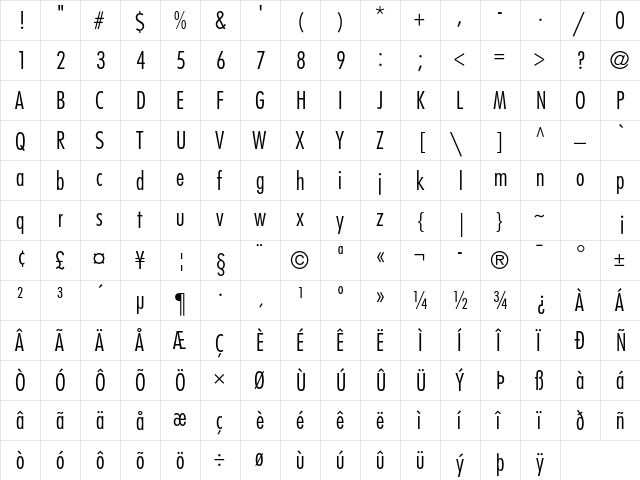
Futura Std Light Condensed Font Preview
| Designer | Paul Renner |
Design Context for Futura Std Typeface
Futura Std has a distinctly futuristic character, with geometric precision and clean angles that feel at home in technology, gaming, and sci-fi contexts. The delicate stroke weight brings airiness and refinement to layouts. The condensed width makes it efficient for tight spaces without sacrificing legibility.
Pro Tip: Try Futura Std with generous letter-spacing in UI labels and navigation — the geometric forms benefit from room to breathe.